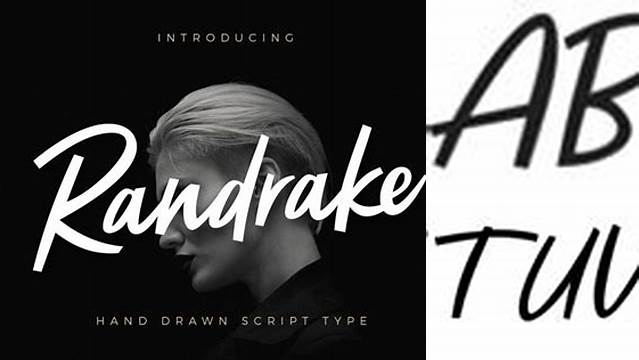
Are you on the hunt for that perfect font to elevate your design project? Look no further! In this article, we will dive deep into the world of the Randrake font, providing you with everything you need to know about this stylish typeface and how to download it for free. From its unique characteristics to its versatile applications, we’ll cover it all.
What is the Randrake Font?
The Randrake font is a contemporary typeface known for its clean lines, elegant curves, and overall modern aesthetic. It's a versatile font that can be used in a variety of design projects, ranging from branding and advertising to web design and print materials. This font stands out because of its unique blend of sophistication and readability. Randrake has quickly become a favorite among designers seeking to add a touch of class and modernity to their work. Its distinct letterforms make it easily recognizable, while its balanced design ensures it remains legible across various media. When you're looking for a font that balances personality with functionality, Randrake is often the go-to choice.
Moreover, Randrake's appeal lies in its adaptability. Whether you're crafting a logo, designing a website, or creating marketing collateral, this font provides a polished and professional look. It works exceptionally well in headlines, body text, and even smaller captions, maintaining clarity and visual appeal. The font's design incorporates subtle details that enhance its overall charm, making it an excellent choice for projects that require a touch of refinement. Designers appreciate its ability to seamlessly integrate into different design styles, from minimalist to more elaborate compositions. The clean and consistent lines of Randrake contribute to a cohesive and visually pleasing design, ensuring that your message is conveyed effectively and stylishly. As you explore the different ways to use this font, you'll discover that its versatility is one of its greatest assets, helping you to achieve a professional and eye-catching result in any project you undertake. Randrake not only enhances the visual appeal of your work but also helps to establish a strong and memorable brand identity. Its contemporary design and elegant curves make it an ideal choice for businesses and individuals looking to make a statement.
Key Characteristics of the Randrake Font
The Randrake font boasts several distinctive characteristics that make it a standout choice for various design applications. One of the primary characteristics is its clean and modern lines. These lines give the font a sleek and professional appearance, making it suitable for both digital and print media. The letterforms are carefully crafted to ensure readability and visual appeal, even in smaller sizes. Additionally, the Randrake font features elegantly curved terminals and balanced proportions, contributing to its overall aesthetic charm. It’s these subtle details that set it apart from more generic typefaces, giving it a unique personality that enhances any design project.
Another significant aspect of the Randrake font is its versatility. It works well in a variety of contexts, from headlines and subheadings to body text and captions. The font's design allows it to maintain clarity and legibility across different sizes and resolutions, ensuring that your message is always communicated effectively. Furthermore, the Randrake font often includes multiple weights and styles, such as regular, bold, italic, and light, providing designers with a wide range of options to suit their specific needs. This adaptability makes it an excellent choice for branding, advertising, web design, and more. Whether you're creating a minimalist website or a bold marketing campaign, the Randrake font can be tailored to fit your vision. The font’s balanced structure and sophisticated appearance make it a reliable choice for projects that demand a touch of elegance and professionalism. Its ability to seamlessly integrate into various design styles ensures that it remains a valuable asset in any designer's toolkit. By understanding and utilizing these key characteristics, you can leverage the full potential of the Randrake font to create visually stunning and impactful designs.
The Randrake font is a stylish and versatile typeface that can enhance a wide range of design projects. By understanding its key characteristics, knowing where to find reliable Randrake font free download options, and following our tips for usage, you can leverage the full potential of this font to create visually stunning and professional designs. Remember to always respect font licenses and attribute the designer when required. Happy designing!